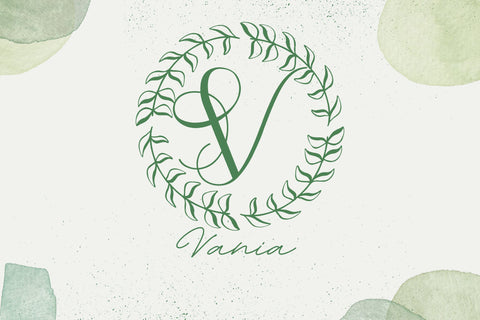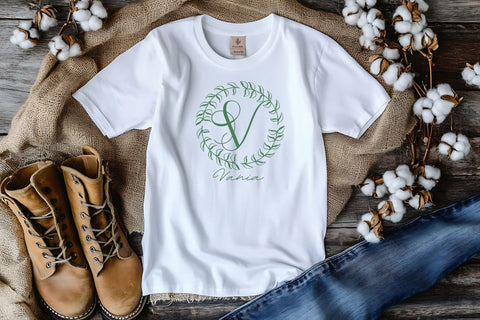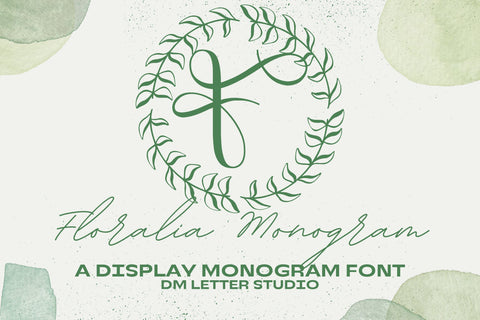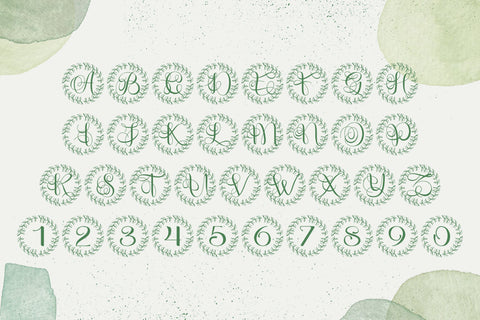
Floralia Monogram – Elegant Floral Monogram Font
Floralia Monogram is a luxurious floral monogram font that beautifully blends botanical elegance with classic serif structure. From graceful invitations to timeless branding, this font adds charm and refinement to any project. With each letter designed to mimic delicate floral arrangements, Floralia is perfect for wedding monograms, personalized gifts, upscale packaging, and romantic logo designs.
Designed for those who appreciate detail, every uppercase letter in this monogram set is adorned with flowing vines, blooming petals, and nature-inspired curves. The result is a font that radiates warmth, femininity, and creative sophistication. Whether you're a bride customizing her wedding suite or a designer crafting identity materials for a boutique brand, Floralia Monogram elevates your visuals with a signature floral twist.
Floralia Monogram is especially suited for premium stationery, spa and beauty product labels, baby shower invites, florist branding, and feminine business cards. Its refined aesthetic bridges the gap between nature and design, making it an ideal choice for modern creatives who want fonts that feel both organic and timeless.
Elegant floral monogram style
Uppercase letters with botanical accents
Ideal for weddings, branding, packaging, and crafts
Supports multilingual characters and standard punctuation